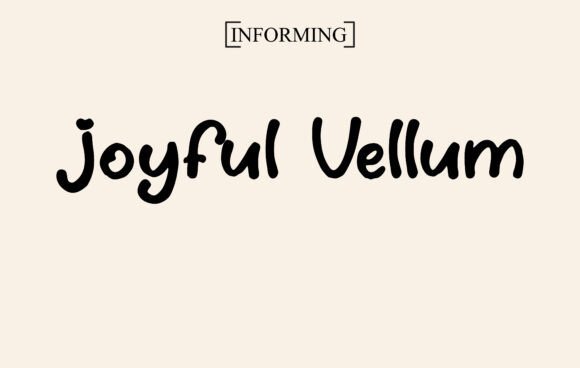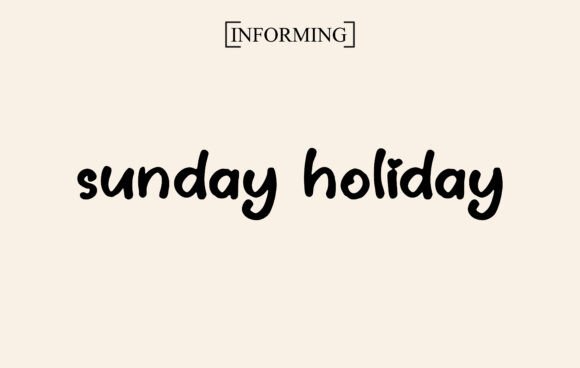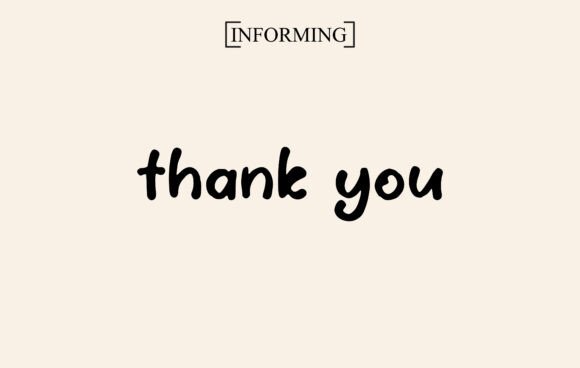
Enter the Joyful Vellum Font, a beautifully designed typeface that’s perfect for making a statement. Whether you’re a seasoned designer or just starting out, this font is a valuable addition to your toolkit. Its legibility and versatility make it a go-to choice for a wide range of designs, from magazine headlines to wedding invitations.
Key Features of Joyful Vellum Font
- Font Style: A beautiful, elegant, and cursive script font, perfect for creating a warm and inviting atmosphere in various designs.
- Unique Characteristics: The Joyful Vellum Font features a unique, hand-drawn look with subtle imperfections, giving it a personal and authentic feel.
Designer Review: Joyful Vellum Font
First off, I have to say that the Joyful Vellum Font is a charming addition to any design project ✨. The script font has a beautiful, whimsical feel to it that’s perfect for creating eye-catching headings and titles. The font’s subtle flourishes and decorative elements add a touch of elegance, making it ideal for wedding invitations, greeting cards, and other special occasion designs.
Here are some things that work well with the Joyful Vellum Font:
- Unique and playful feel that adds a personal touch to designs ✨
- Perfect for creating attention-grabbing headings and titles
- Subtle flourishes and decorative elements add a touch of elegance
However, there are a few limitations to keep in mind ⚠️:
- May not be suitable for body text due to its script nature
- Can be challenging to read at small font sizes
- May require additional styling to ensure proper spacing and alignment
Overall, I think the Joyful Vellum Font is a lovely addition to any design library. While it may have some limitations, its unique charm and elegance make it a great choice for the right projects. Just be sure to use it judiciously and pair it with clear, readable fonts for body text.
The Joyful Vellum font is perfect for creating elegant and whimsical designs. Use it for:
- Party decorations and signage
- Journaling and scrapbooking
- Personalized gifts and cards
To get the most out of the Joyful Vellum font, experiment with different font sizes, colors, and styles to create unique and eye-catching designs.